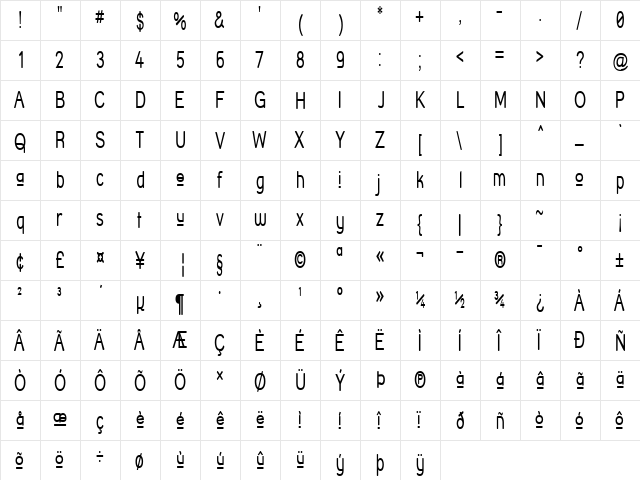
Street Corner Upper Narrow Regular
Design Context for Street Corner Upper Narrow Typeface
Street Corner Upper Narrow takes a measured approach to typography — its balanced proportions and neutral character make it a reliable workhorse for both digital and print work. The condensed width makes it efficient for tight spaces without sacrificing legibility.